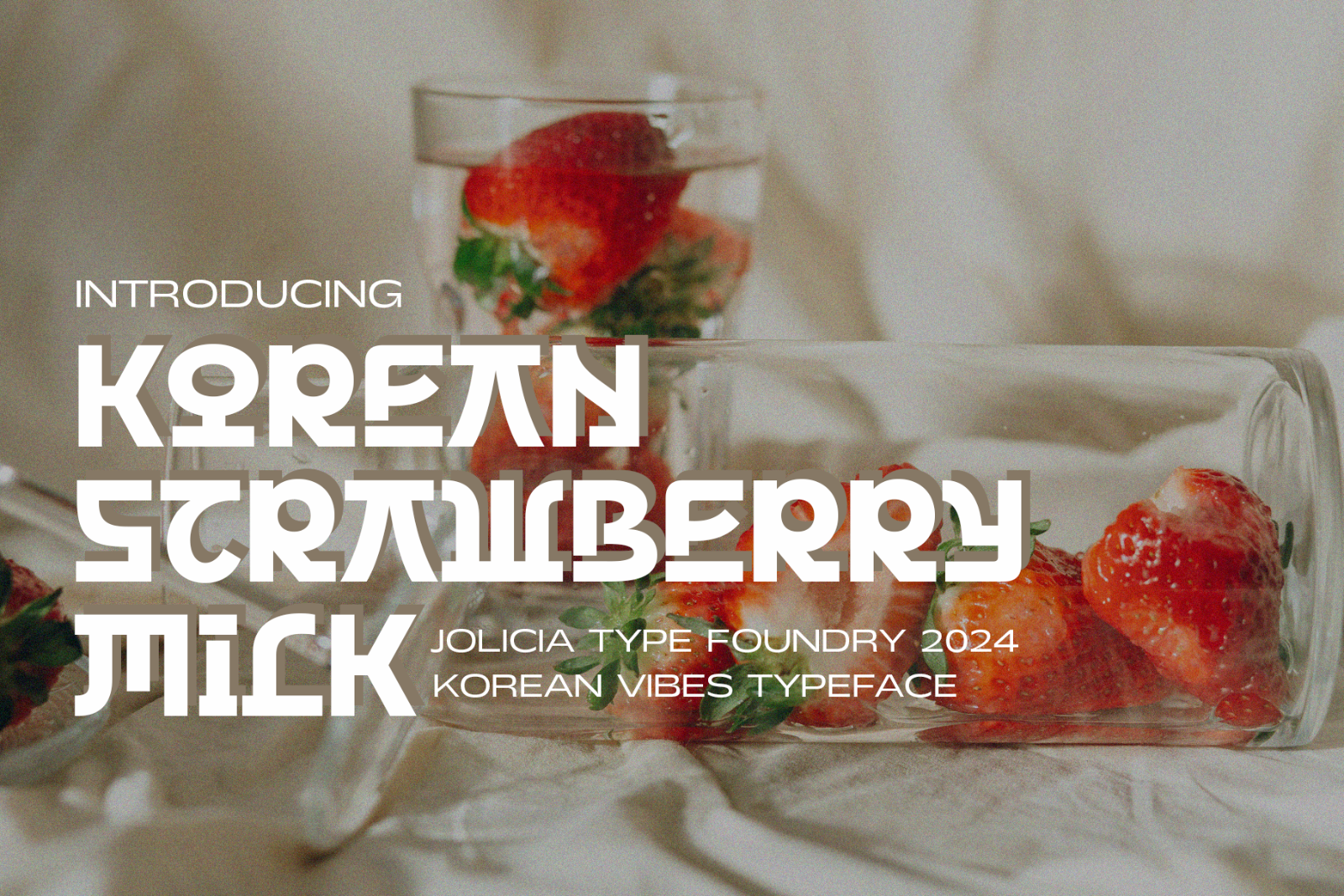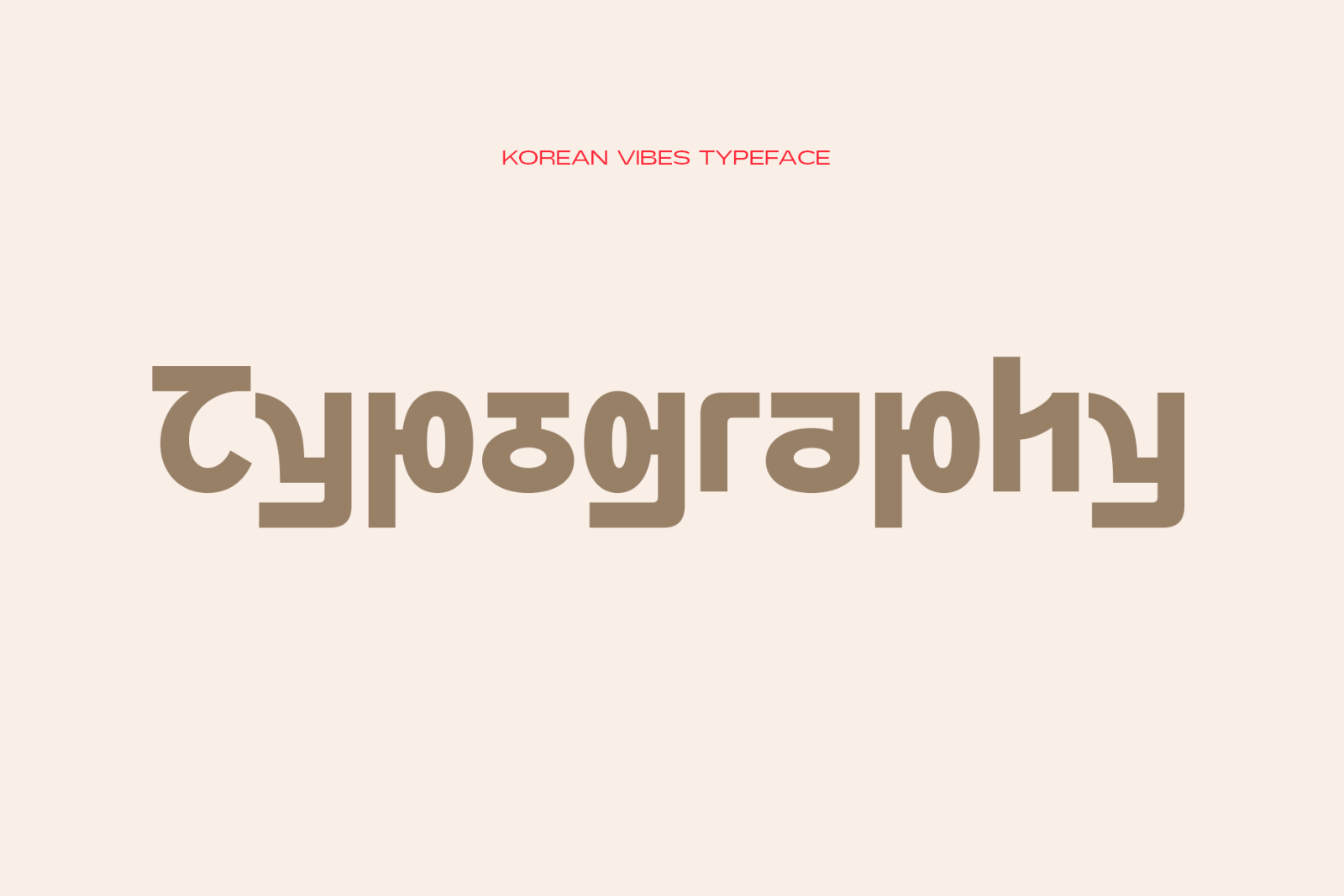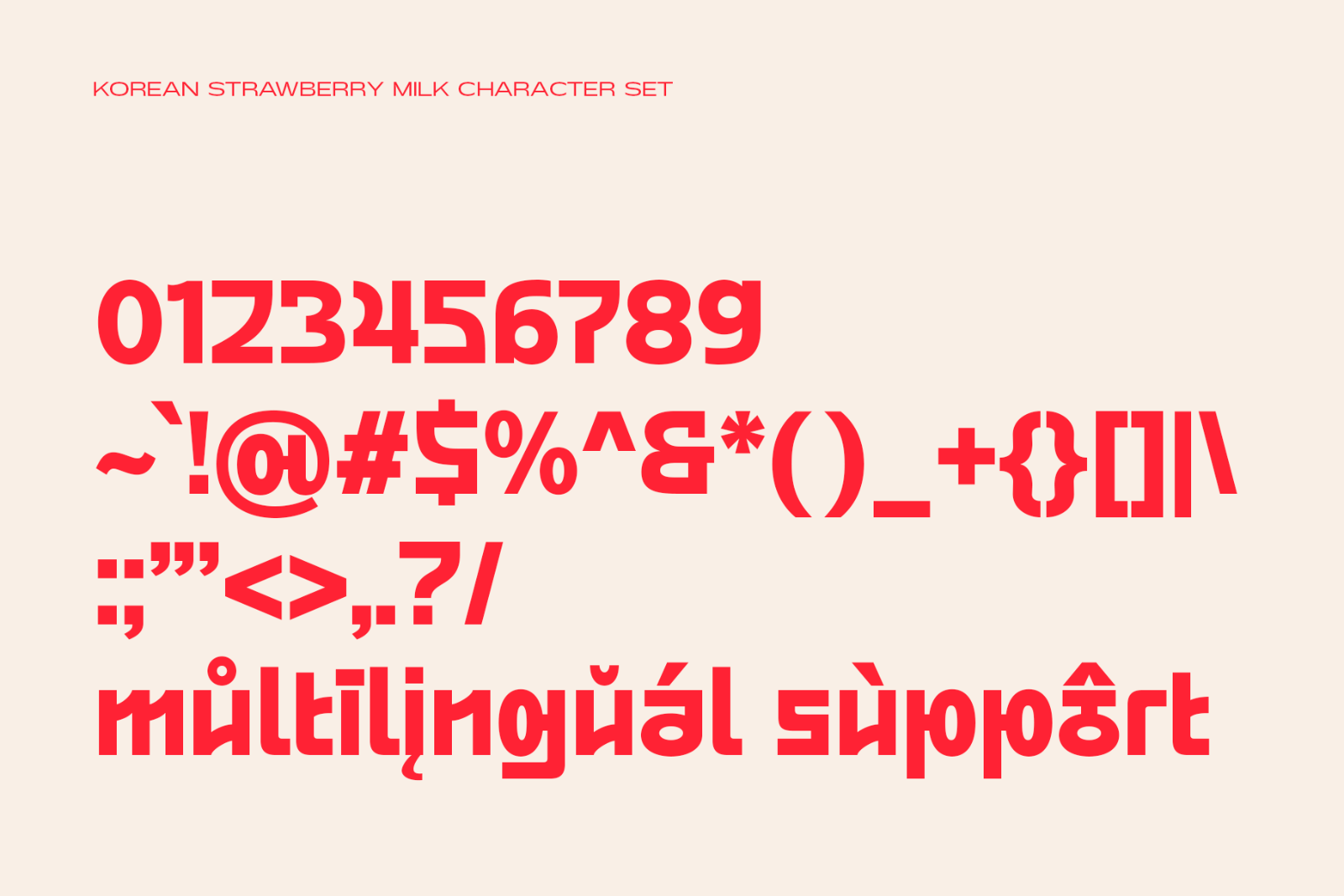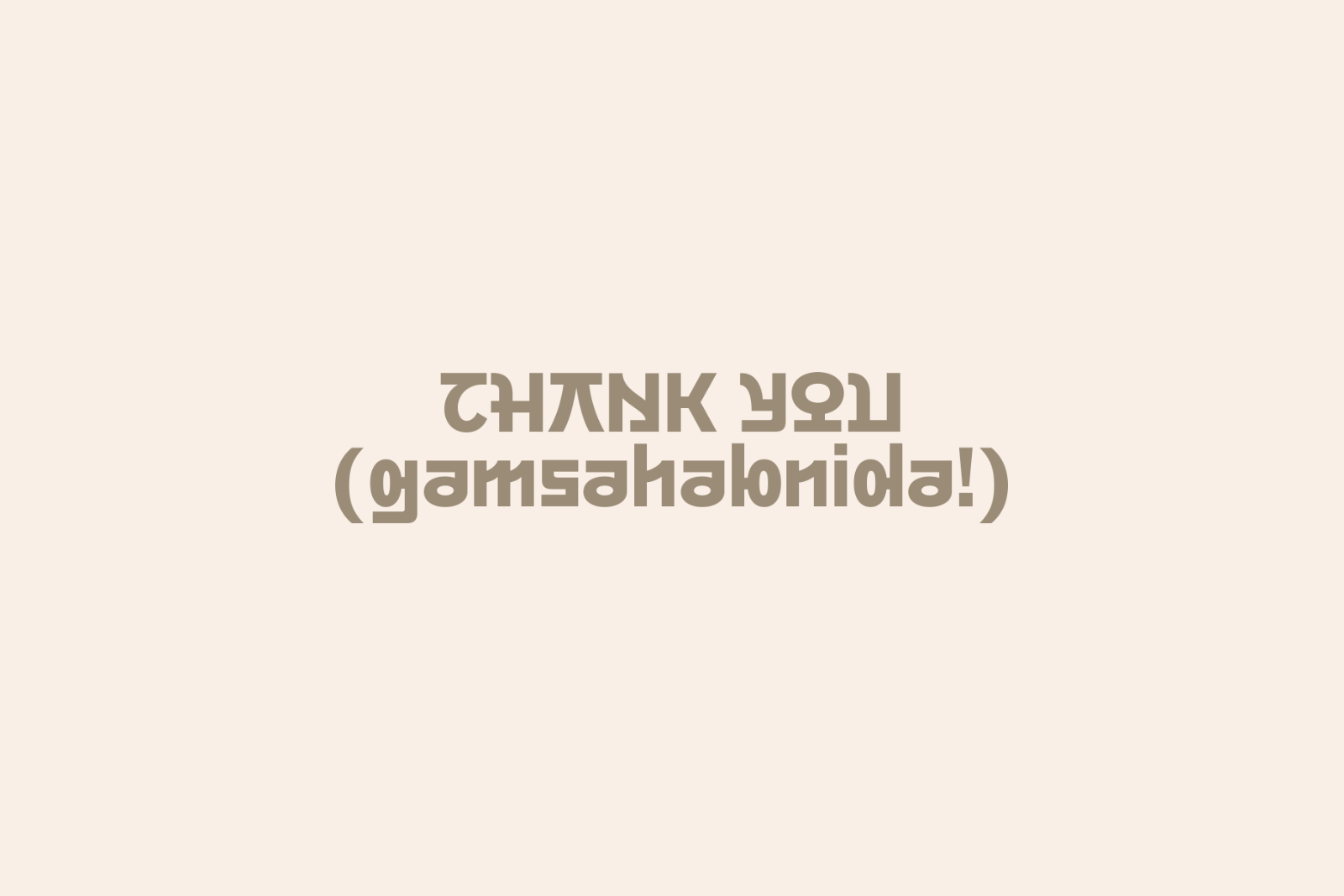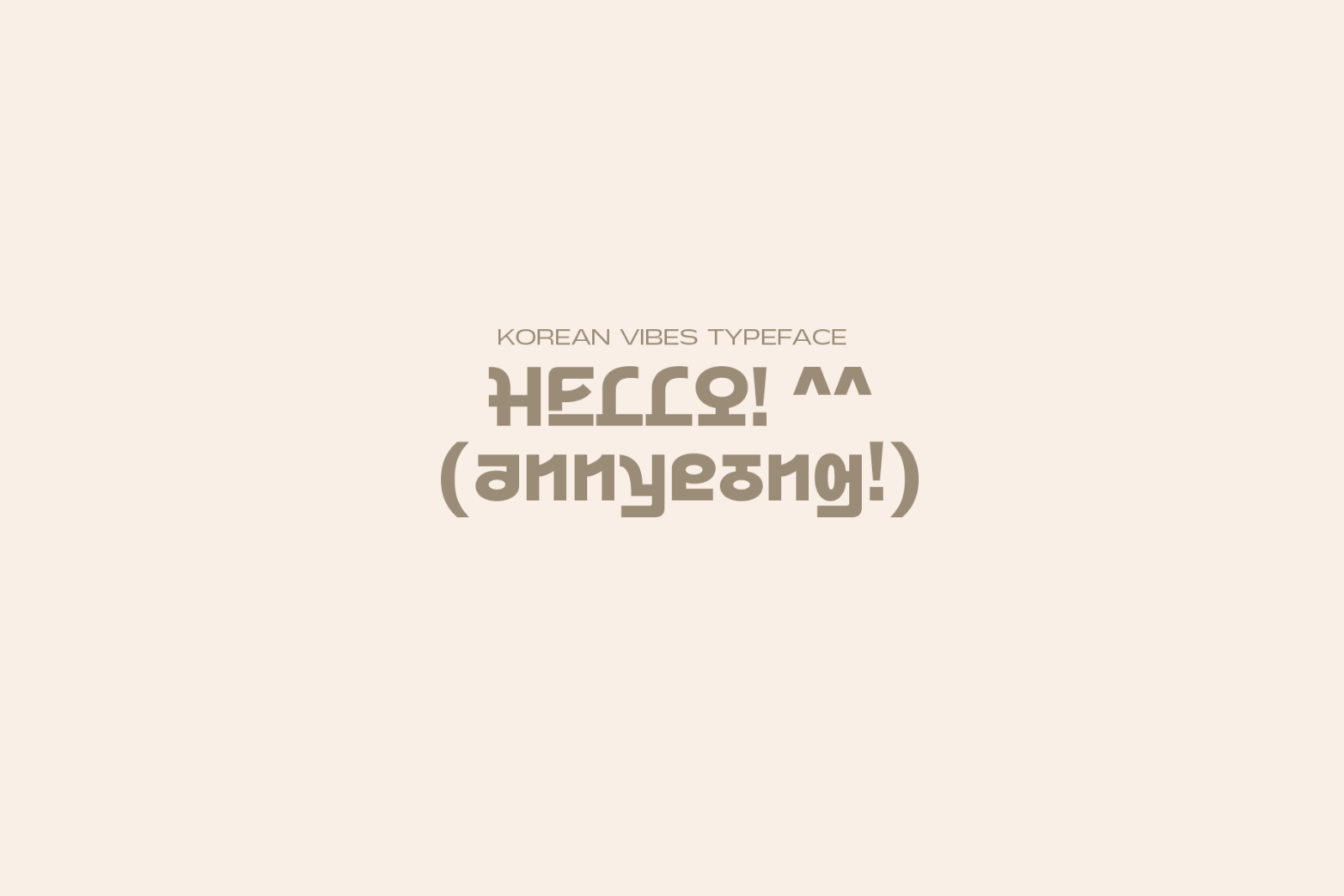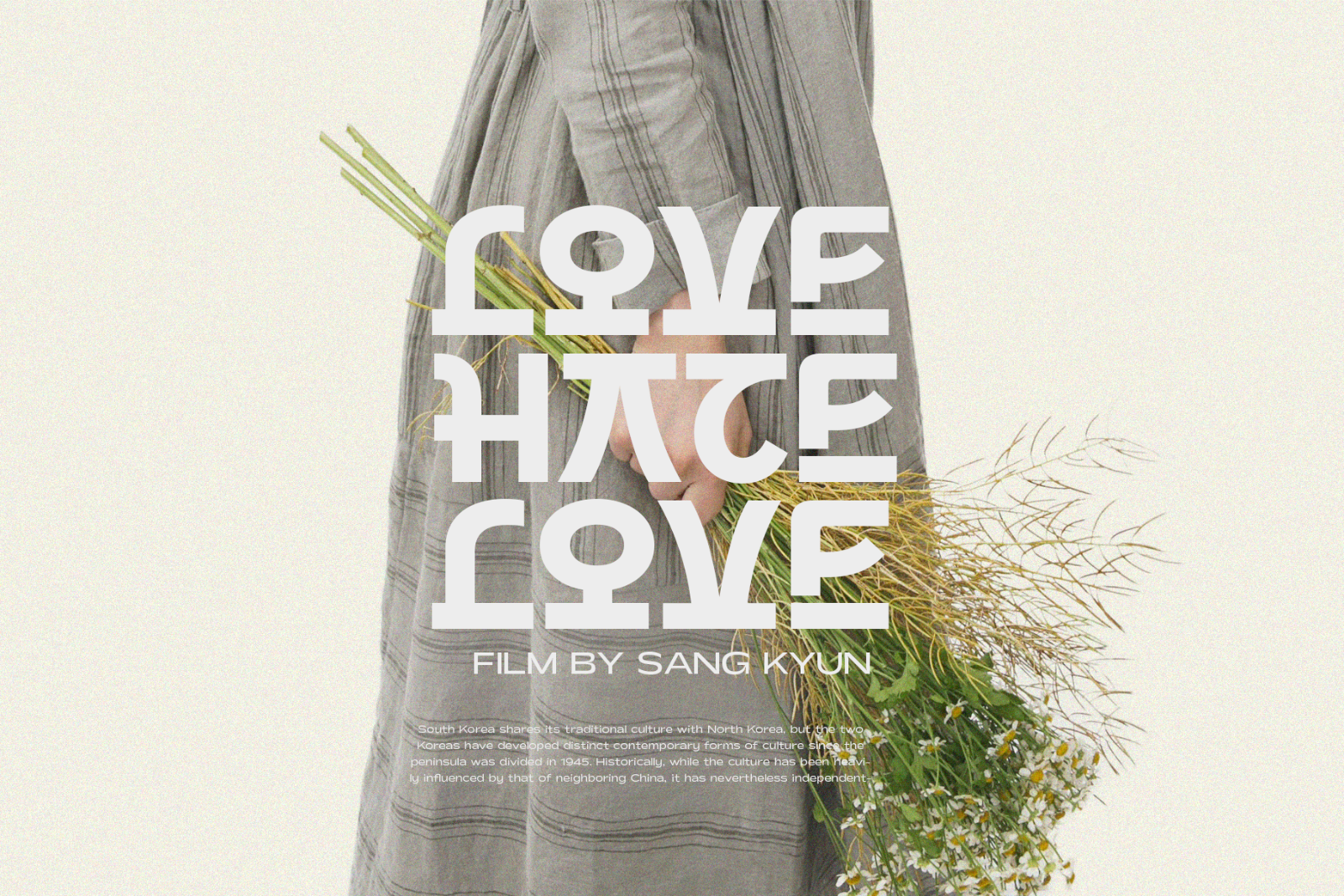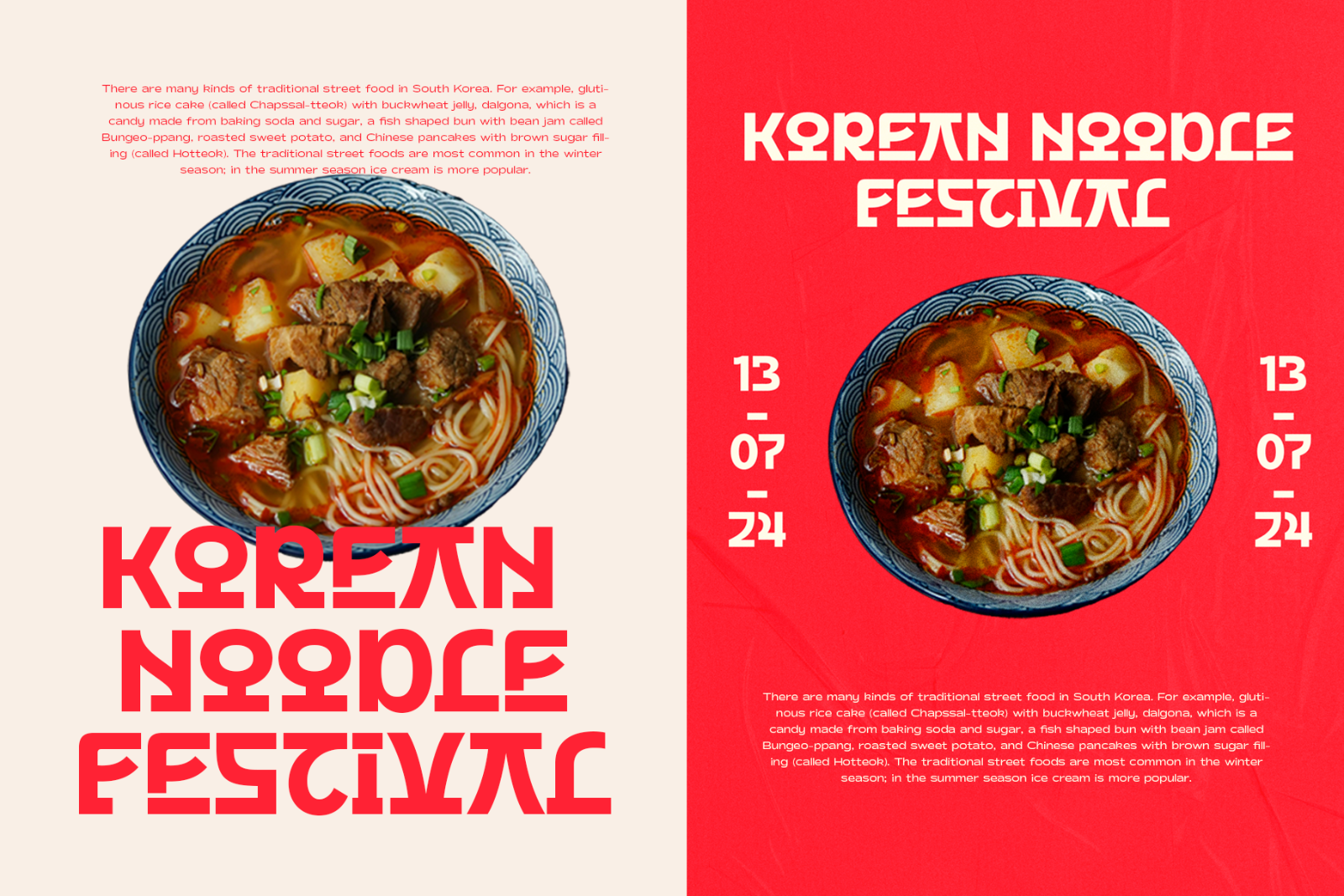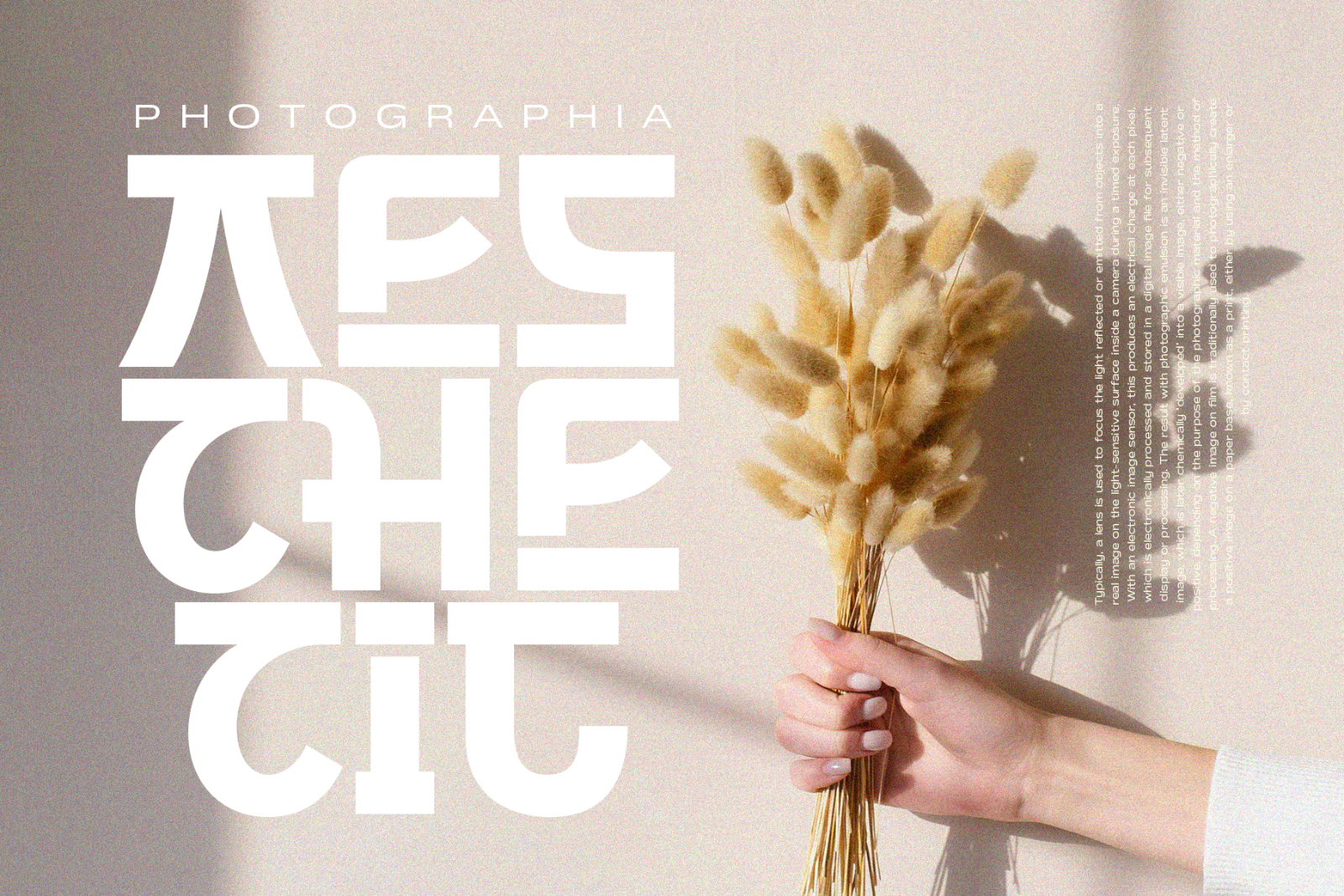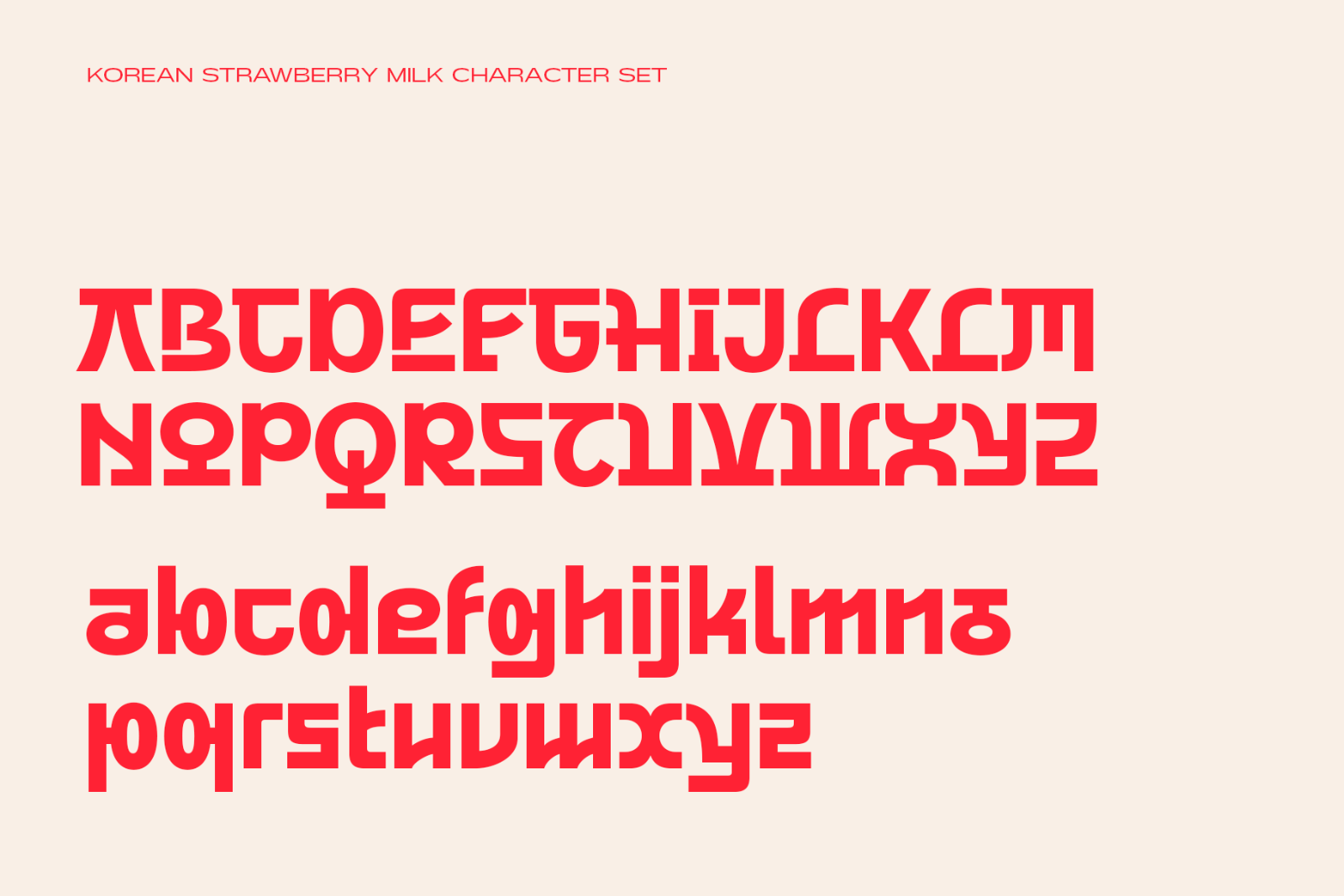
Discover the charm of “Korean Strawberry Milk,” a delightful Korean style font that brings a touch of sweetness and elegance to your designs.
Inspired by the graceful strokes of traditional Korean calligraphy, “Korean Strawberry Milk” adds a unique cultural flair to your text.
Discover the charm of “Korean Strawberry Milk,” a delightful Korean style font that brings a touch of sweetness and elegance to your designs.